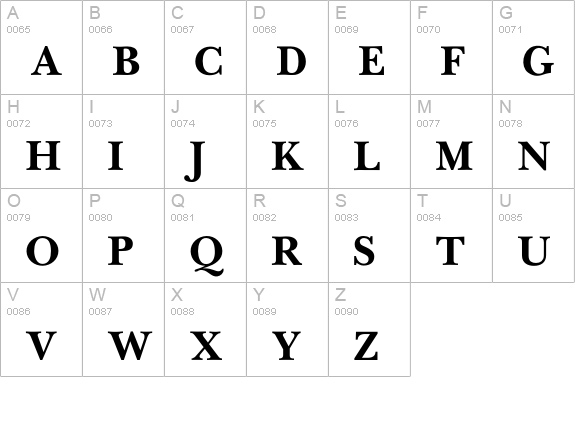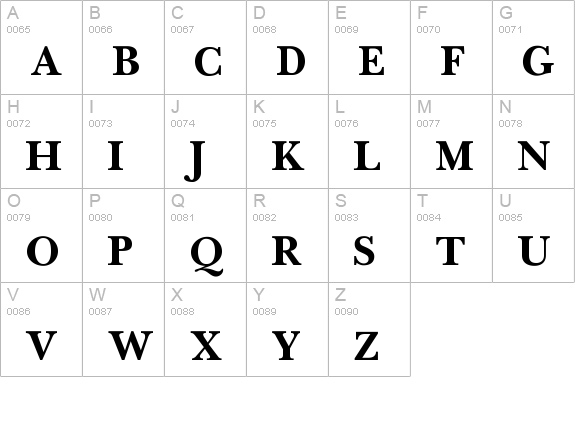
NewBaskervilleBold Font Details
New Baskerville Bold is a timeless and elegant serif font that exudes sophistication and style. With its strong and confident letterforms, this typeface is perfect for conveying a sense of authority and professionalism in your designs. The bold weight of New Baskerville makes it ideal for creating eye-catching headlines and titles that demand attention. What sets New Baskerville Bold apart is its perfect balance of classic and modern elements, making it versatile and suitable for a wide range of design projects. Whether you're working on a print publication, branding materials, or digital content, this font will add a touch of refinement to your work. Best of all, New Baskerville Bold is available for free download at FontsMarket.com, making it easily accessible for designers and creatives looking to elevate their projects with a touch of sophistication. Don't miss out on the opportunity to add this timeless font to your collection and take your designs to the next level.